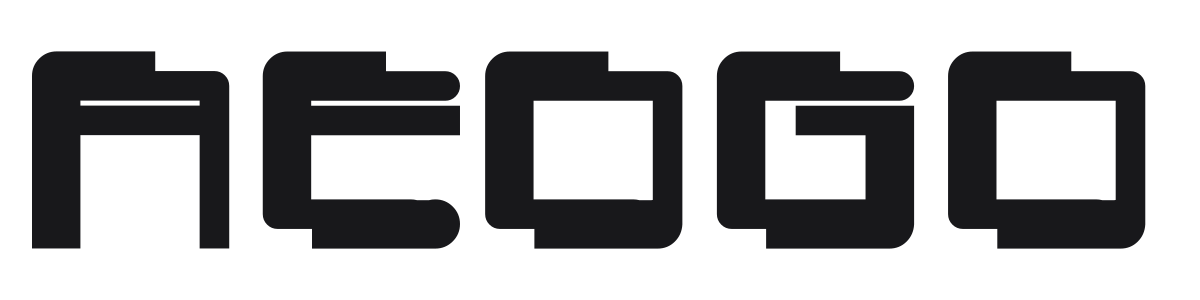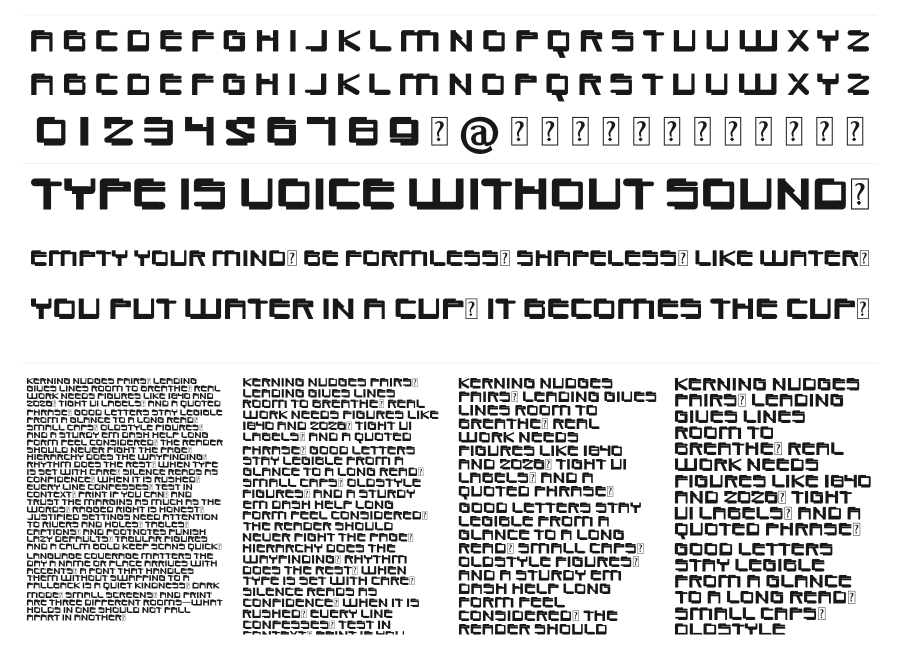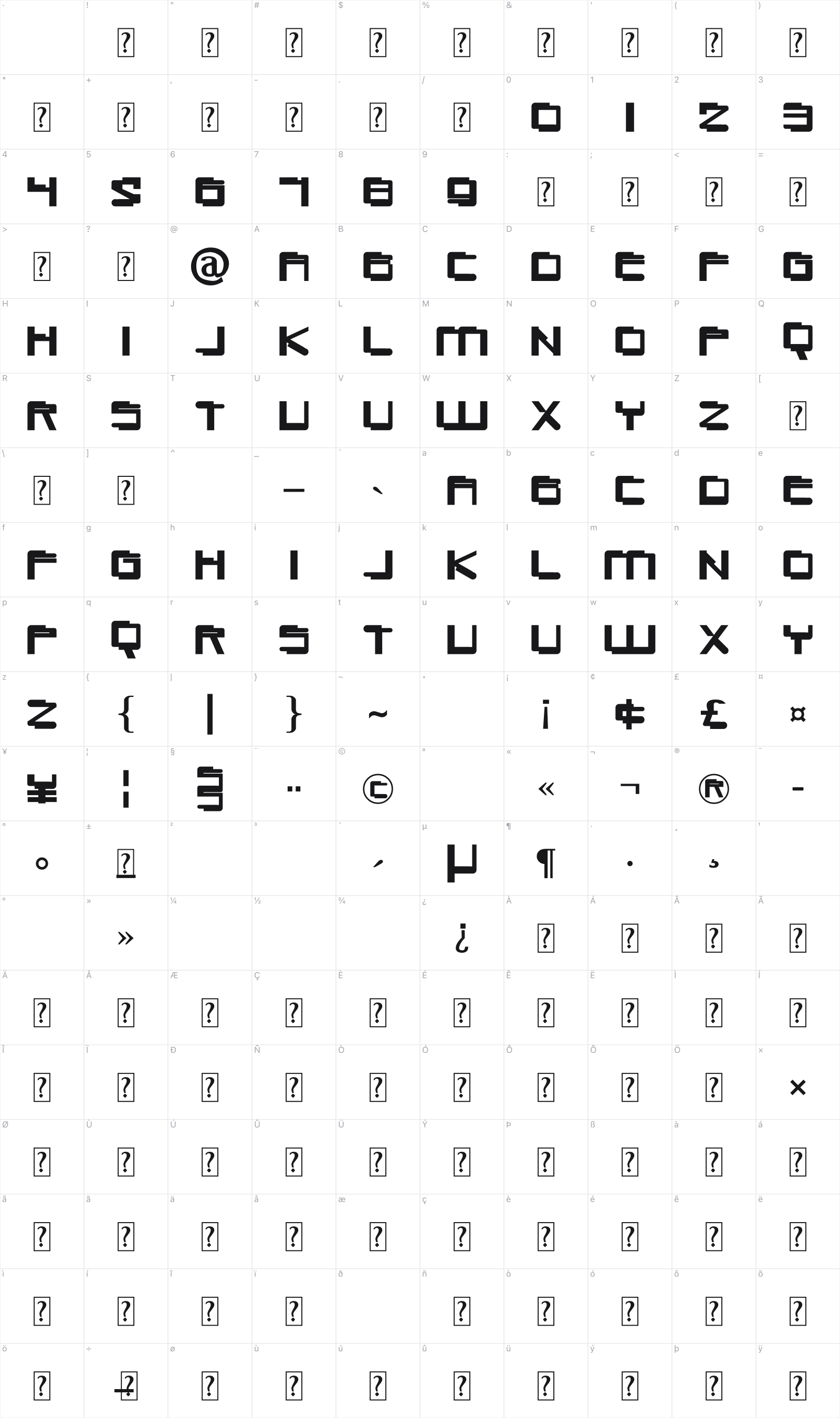
Aeogo
Aeogo is a bold square techno display font built from thick, hard-edged rectangular segments with notched corners. The uniform monoweight strokes and segmented construction give it an LCD or circuit-board aesthetic. It reads with authority at large sizes and fits naturally in gaming, tech, and entertainment contexts.